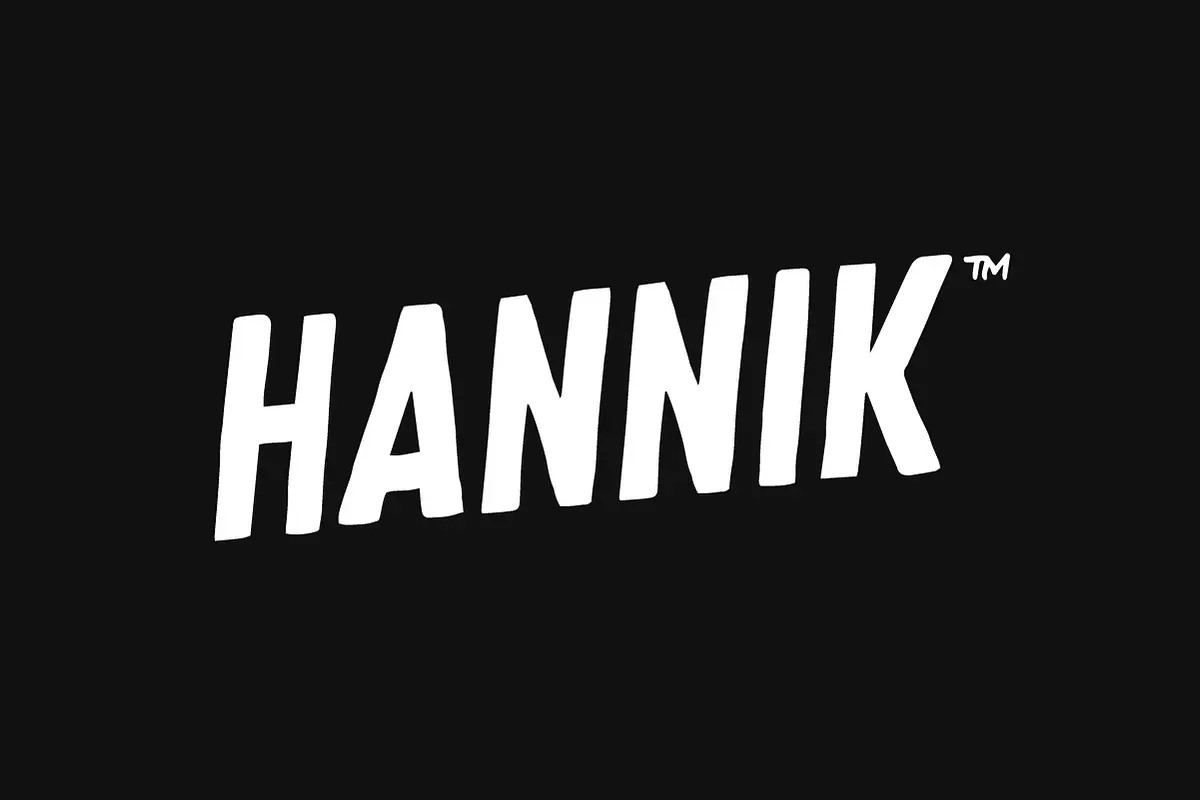
Hannik Font Free Download is a modern, versatile typeface that combines clean lines with subtle curves, creating a refined yet approachable look. Perfect for branding, logos, headlines, websites, and social media content, this font offers both readability and a stylish presence.
The contemporary design of Hannik makes it ideal for both formal and casual applications. Whether you’re designing for a professional brand, creating an elegant invitation, or working on a digital project, this font brings sophistication and clarity to your typography.